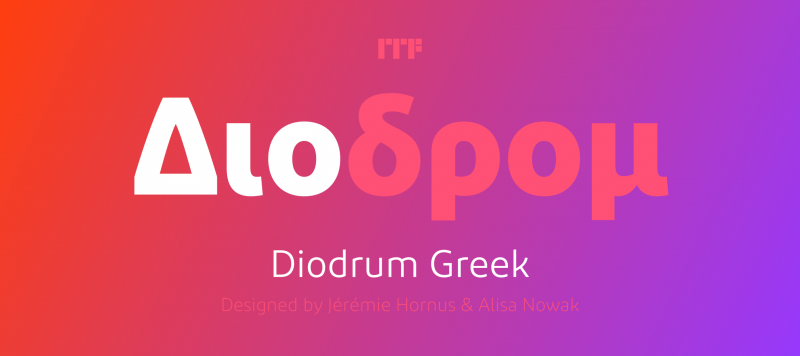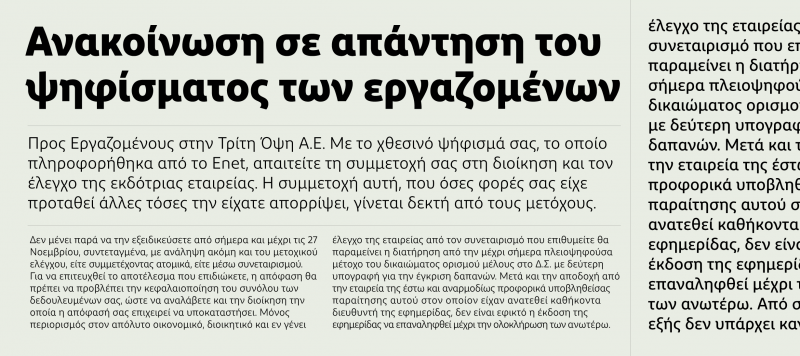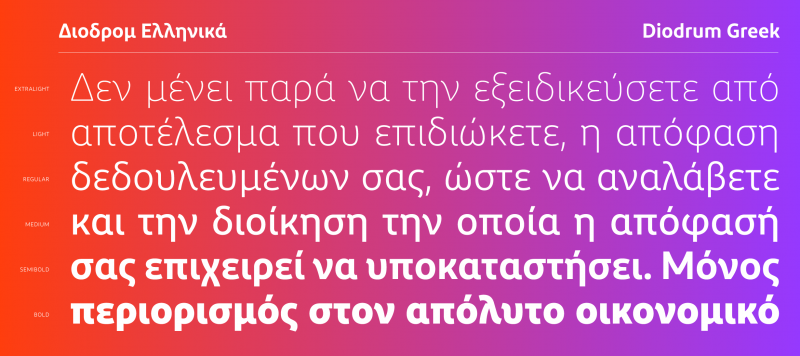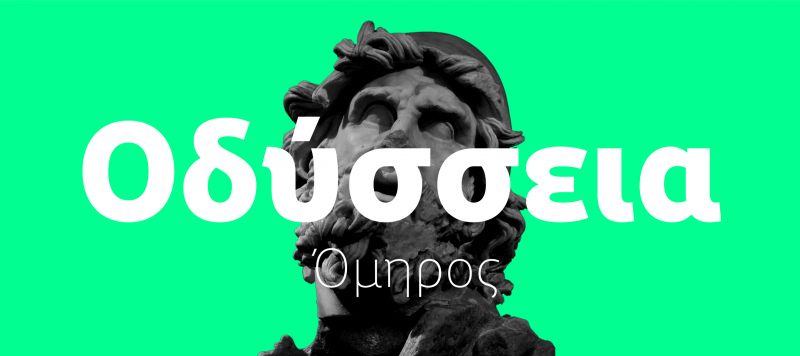
Following up on our successful Diodrum Latin and Diodrum Arabic families, Diodrum was further extended to support Cyrillic and Greek. The Diodrum Greek family has six styles ranging in weight from Extralight to Bold. Each font’s character set has 457 glyphs, including a full Latin character set and support for Monotonic Greek glyphs. Diodrum Greek is a generally monolinear design; the x-height is tall, and its counterforms are large and open. Instead of straight lines, the typeface’s diagonals swell outward, giving letters with prominent diagonals increased dynamism. Diodrum’s Latin-script characters are ‘spurless,’ meaning that the transitions from their stems into their curved strokes are smooth. Many of the Greek letters have in and outstrokes that might look a little like spurs, but these improve Diodrum’s appropriateness for the Greek script. Diodrum’s Latin and Greek harmonise well together; they each have the same treatments of their stroke terminals, for instance, and they set a similar colour in text. Due to the multiple weights and its friendly look, Diodrum Greek is an excellent choice for use in Corporate Design and UI/UX Design applications.